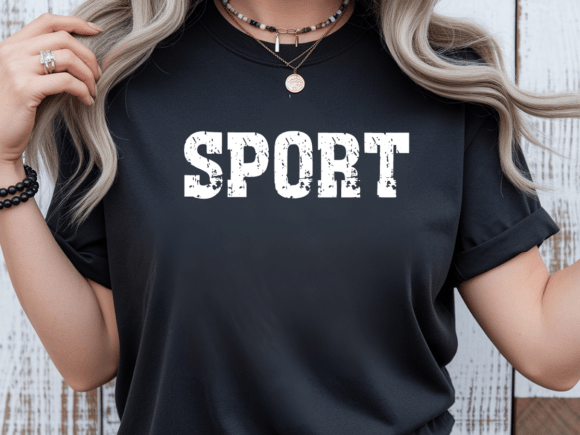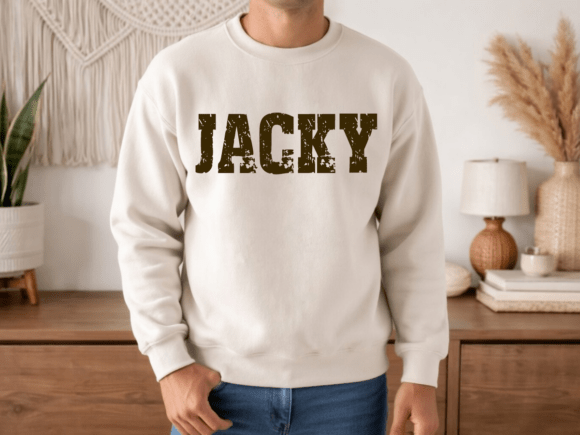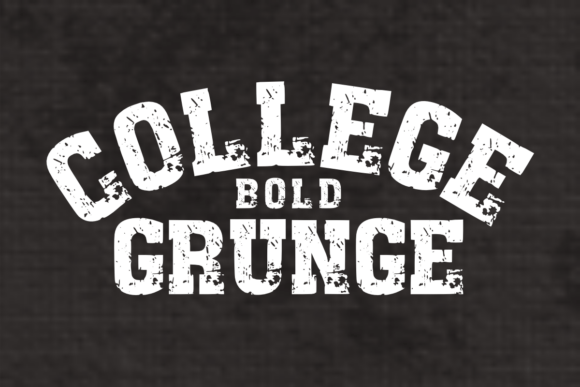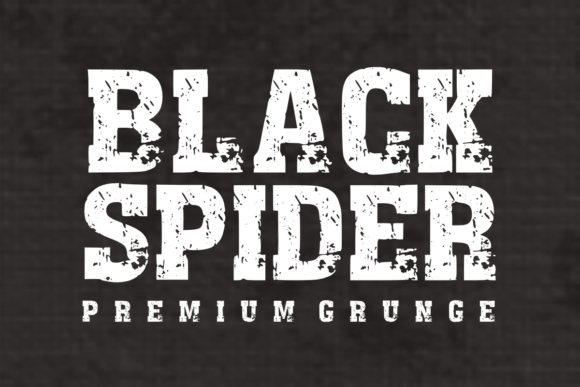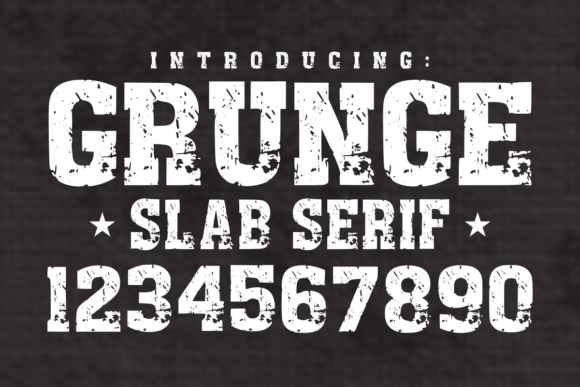
🔥 Unleash the Power of Grunge Slab Serif: The Ultimate Font for Industrial Grit and Vintage Soul 🔥
Are you tired of using the same old clean and sleek fonts that lack character and personality? Look no further than Grunge Slab Serif, the heavyweight display font that’s designed to add raw power and industrial grit to your projects. With its massive blocky slab-serif anatomy and high-detail distressed texture, this font is perfect for those who want their message to carry authority and a weathered, vintage soul.
The Anatomy of Grunge Slab Serif
Grunge Slab Serif boasts a unique and rugged design that’s reminiscent of aged ink, rusted metal, and old-school military stencils. Its slab-serif anatomy is characterized by thick, blocky serifs that add a sense of weight and solidity to your text. The font’s high-detail distressed texture gives it a worn and weathered look that’s perfect for creating rugged branding and high-impact headlines.
Why Grunge Slab Serif Stands Out
This font excels where clean fonts fail. It adds an instant layer of character and history to your designs, making it the go-to choice for designers and crafters who want to create something truly unique and eye-catching. Despite its intricate texture, the outlines of Grunge Slab Serif are optimized for crisp printing and visibility, ensuring it looks stunning on everything from massive banners to small apparel labels.
The Benefits of Using Grunge Slab Serif
- Adds character and personality: Grunge Slab Serif brings a level of grit and industrial charm to your designs that’s hard to achieve with clean fonts.
- Perfect for rugged branding: This font is designed to create high-impact headlines and rugged branding that stands out from the crowd.
- Optimized for crisp printing: The outlines of Grunge Slab Serif are optimized for crisp printing and visibility, ensuring it looks great on a variety of materials and sizes.
- Versatile: This font can be used on everything from massive banners to small apparel labels, making it a versatile addition to your design toolkit.
Who Can Benefit from Grunge Slab Serif?
Grunge Slab Serif is perfect for a variety of designers and crafters, including:
- Graphic designers: This font is perfect for creating high-impact headlines and rugged branding that stands out from the crowd.
- Sign makers: Grunge Slab Serif is optimized for crisp printing and visibility, making it perfect for creating eye-catching signs and banners.
- Fashion designers: This font can add a touch of industrial grit and vintage soul to apparel labels and branding materials.
- Crafters: Grunge Slab Serif is a great addition to any crafter’s toolkit, perfect for creating unique and eye-catching designs for DIY projects.
Tips for Using Grunge Slab Serif
Here are a few tips for getting the most out of Grunge Slab Serif:
- Use it sparingly: This font is designed to make a statement, so use it sparingly to add emphasis and create visual interest.
- Experiment with colors: Grunge Slab Serif looks great in a variety of colors, from bold and bright to muted and distressed.
- Pair it with clean fonts: Pairing Grunge Slab Serif with clean fonts can create a striking contrast that adds visual interest to your designs.
Grunge Slab Serif is a powerhouse of a font that’s designed to add raw power and industrial grit to your projects. With its unique and rugged design, this font is perfect for creating rugged branding and high-impact headlines that stand out from the crowd. Whether you’re a graphic designer, sign maker, fashion designer, or crafter, Grunge Slab Serif is a versatile and powerful addition to your design toolkit.